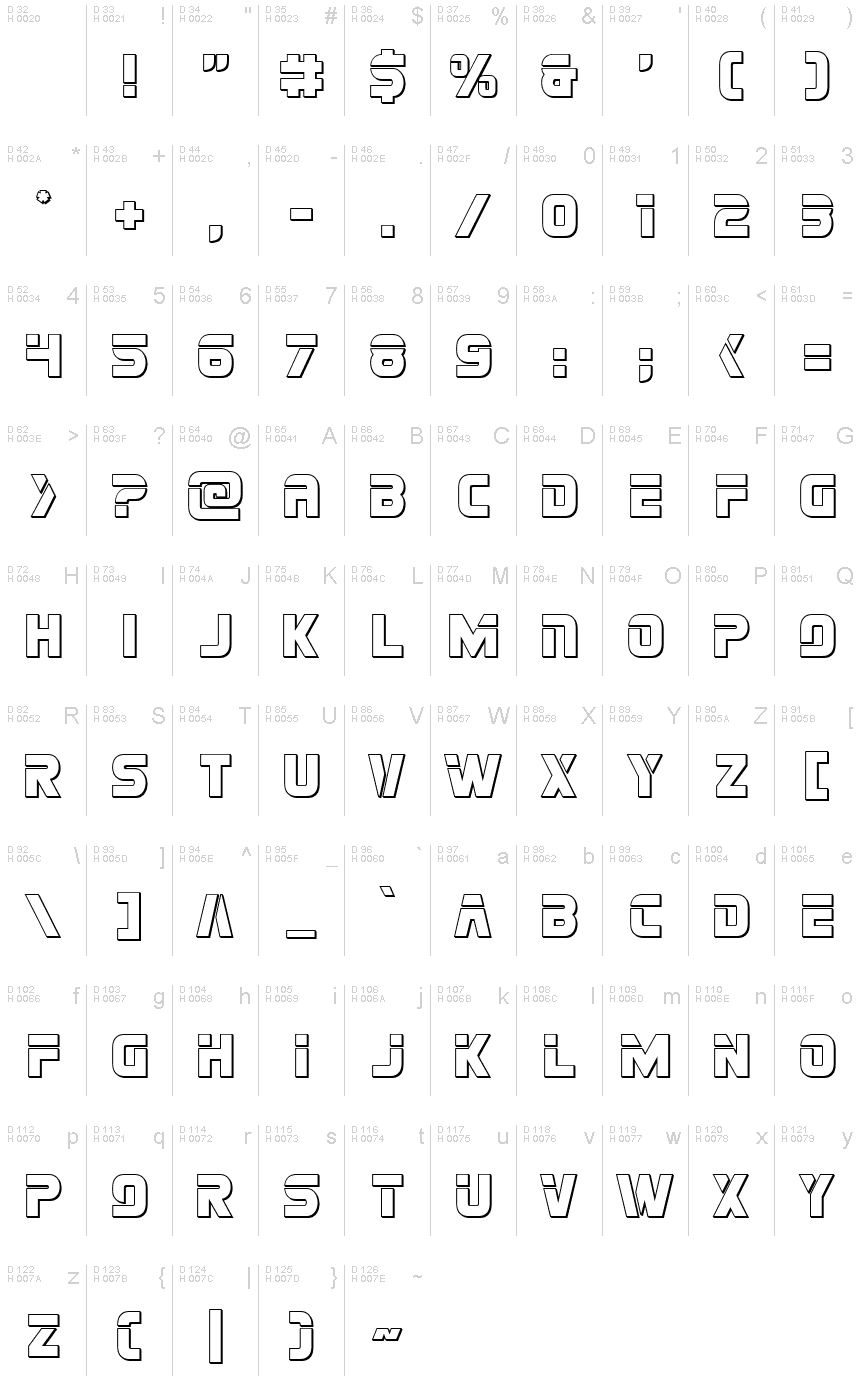
Mission: Danger Outline
Looking for a bold and daring font to make a statement? Look no further than Mission: Danger Outline! Designed by Iconian Fonts, this 3D techno display font is perfect for projects that need an extra punch. With its bold weight and attention-grabbing style, Mission: Danger Outline is ideal for posters, flyers, and other promotional materials. Use it for your next event or product launch to really make an impact. This versatile typeface can also work well in gaming designs or futuristic projects. Don't settle for plain fonts - choose Mission: Danger Outline!